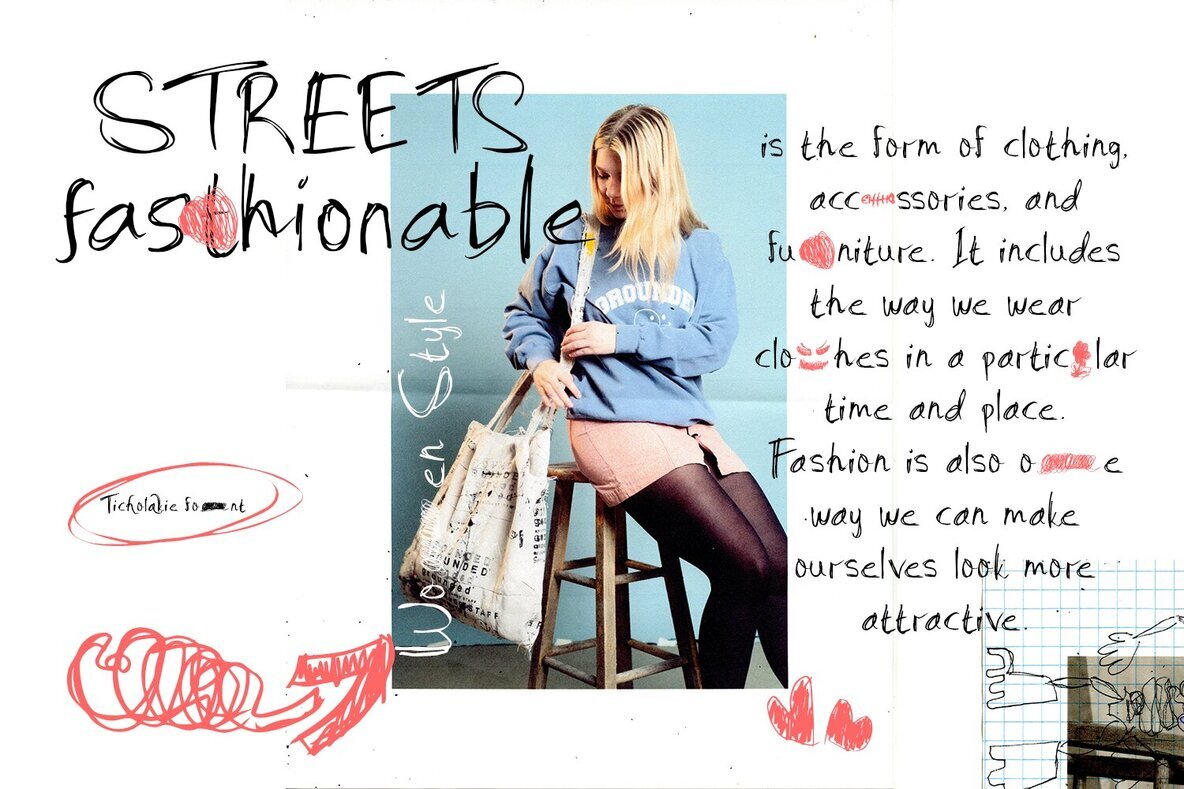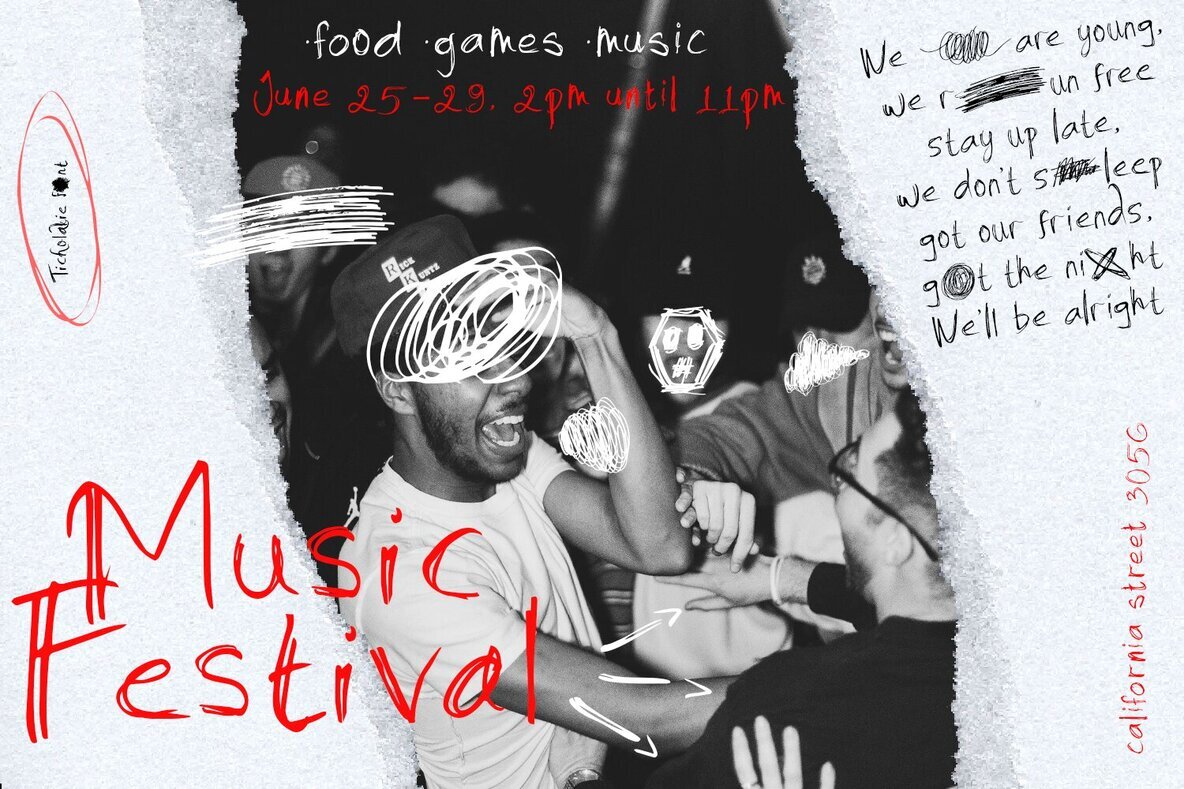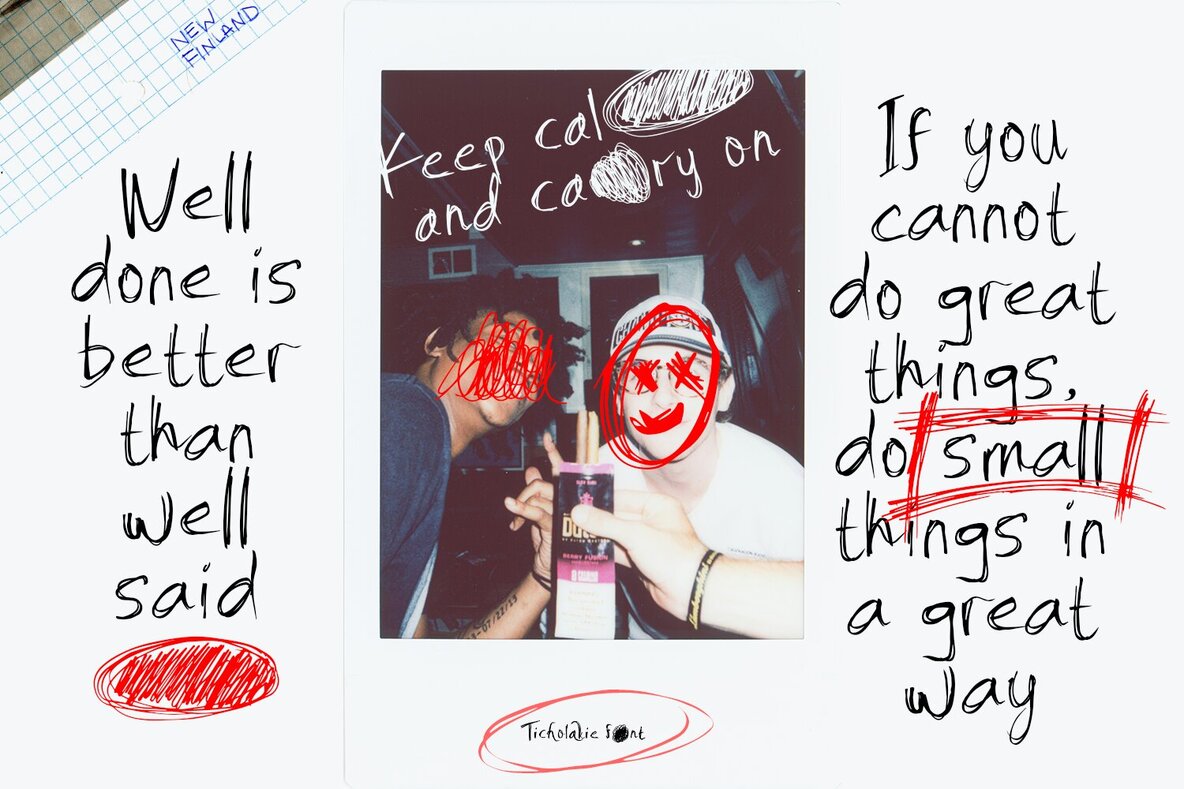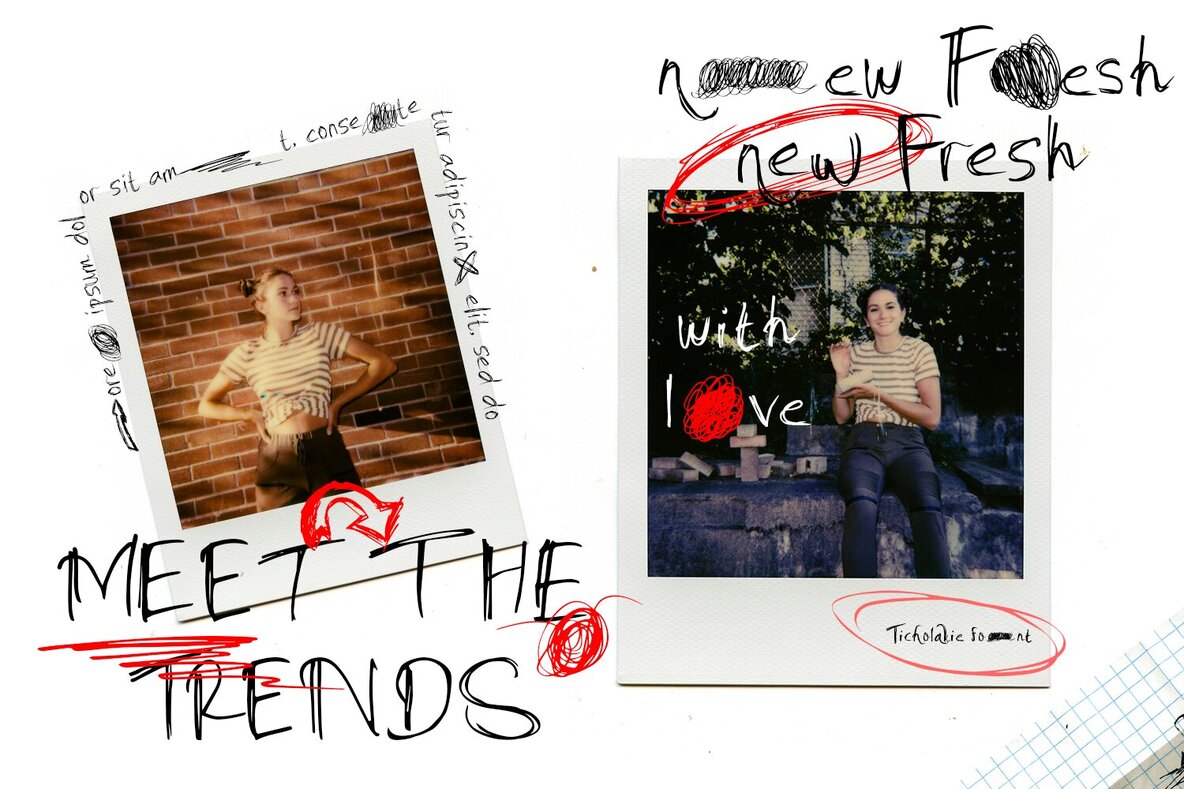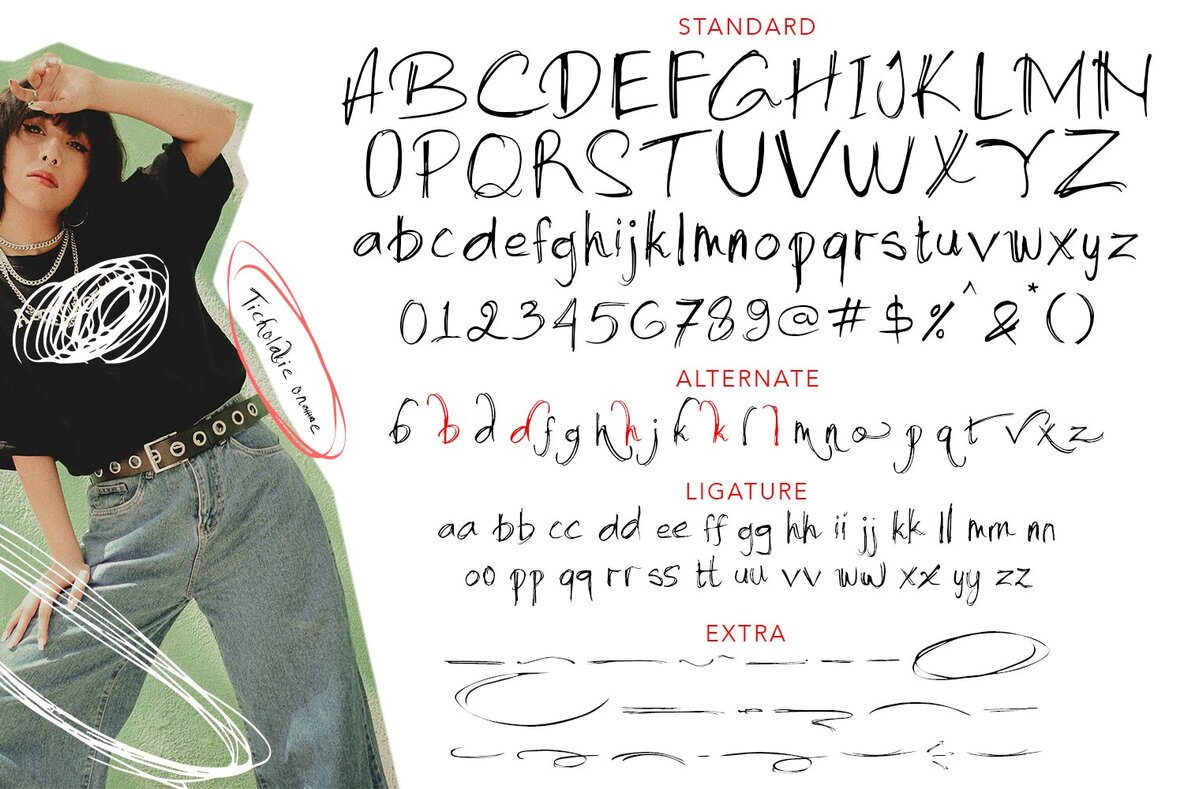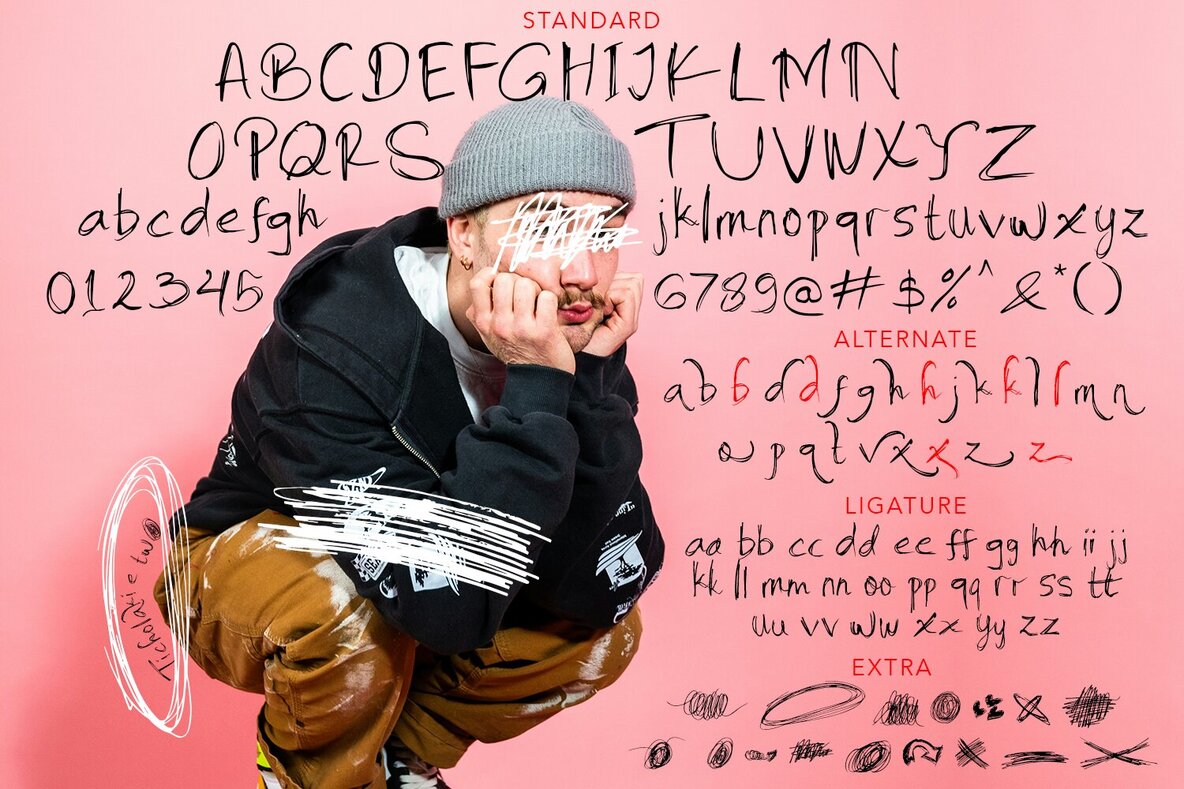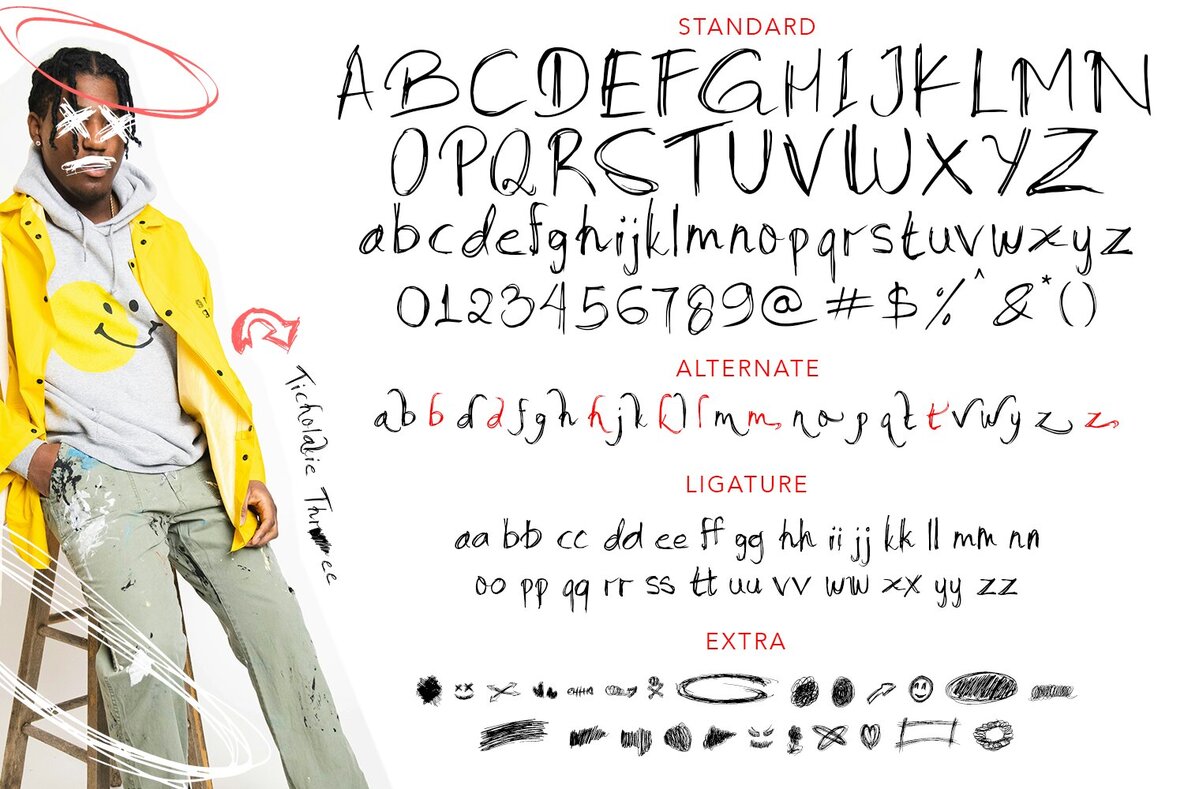
Ticholakie Font
Ticholakie One
Ticholakie Three
Ticholakie Two
Ticholakie is a hand-drawn note font that offers three unique versions, each equipped with ligatures, alternatives, and extras. This versatile set provides a genuine handwritten feel, perfect for creating designs that appear as though they’ve been penned by the designer directly. Ideal for branding, posters, logos, invitations, and headings, Ticholakie adds a personal touch to any project.
With its authentic look and varied stylistic options, Ticholakie stands out in any application. Whether you're crafting a striking logo, an engaging invitation, or a standout header, this font adapts to your needs while providing a warm, handcrafted aesthetic. Its multiple versions and customization features ensure that your designs will have the uniqueness and charm that handwritten text can offer.